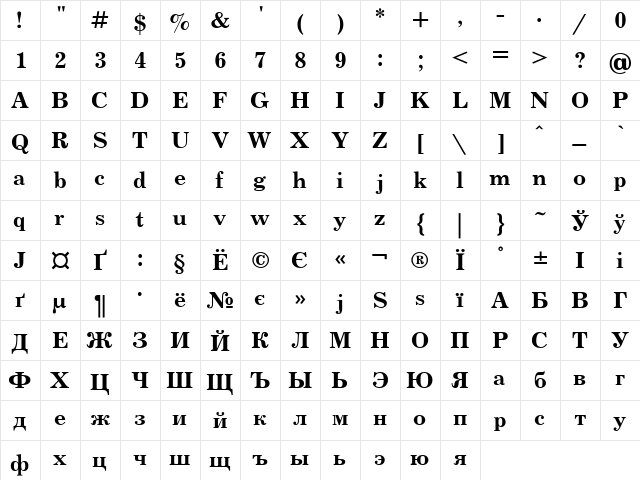
UkrainianJournal Bold
Design Context for UkrainianJournal Typeface
UkrainianJournal takes a measured approach to typography — its balanced proportions and neutral character make it a reliable workhorse for both digital and print work. The heavy weight commands attention and anchors typographic hierarchies.